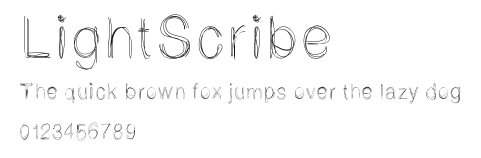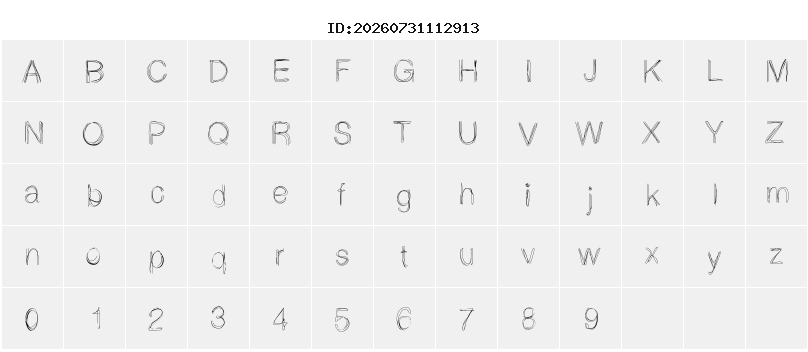
LightScribe Preview
• Font Name: LightScribe
• Font Style: LightScribe
About LightScribe.ttf
LightScribe.ttf is a modern, elegant sans-serif font designed for ultimate readability and visual harmony. Perfect for branding, headlines, web design, and print materials.